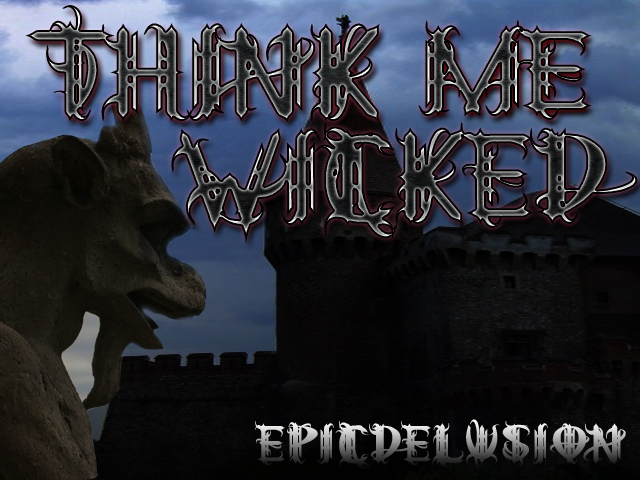
Think Me Wicked by Epicdelusion is a free scary display font with a tangled, gothic silhouette and sharply changing stroke widths. Hooked points and long thornlike extensions keep the letters deliberately unruly.
Metal bands and alternative fashion labels can use its dense ornament for logos, merchandise, and album packaging rooted in dark theatrical imagery. It is most convincing on horror event posters, where the lettering can become part of the menace rather than a neutral caption.